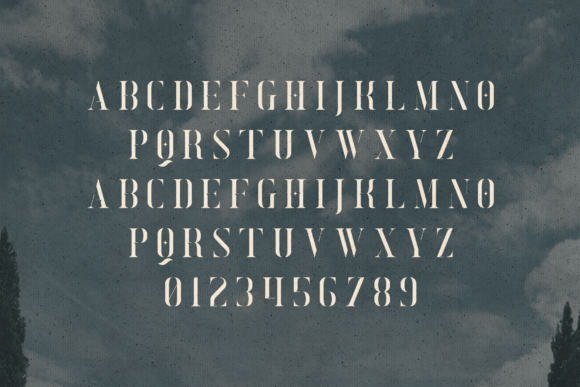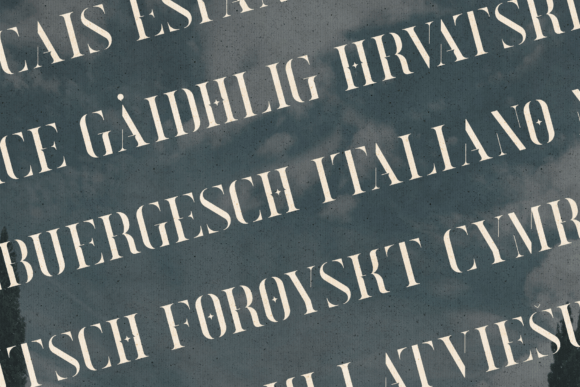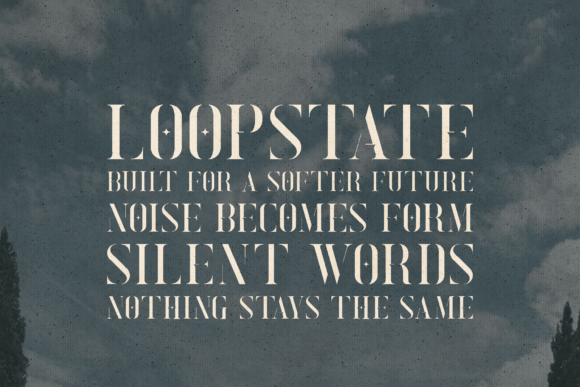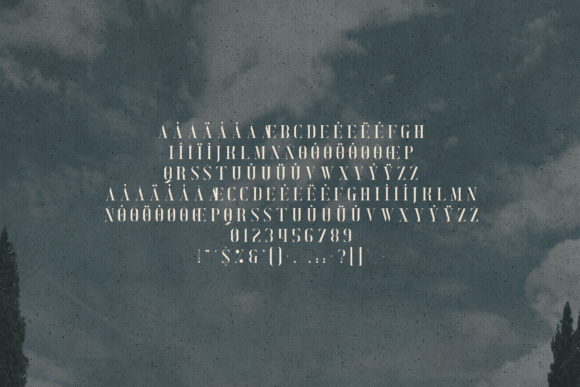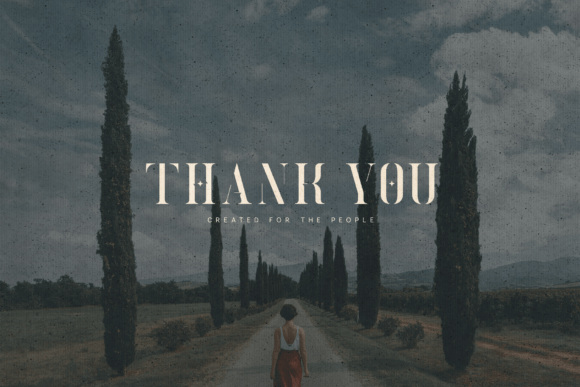
Introducing Exquisite: The Elegant Stencil Serif Font for High-End Design
Are you looking for a font that exudes sophistication, elegance, and refinement? Look no further than Exquisite, a stunning stencil serif font designed specifically for high-end branding, editorial design, and creative projects. With its unique blend of classic and contemporary elements, Exquisite is the perfect choice for designers and crafters seeking to add a touch of luxury to their work.
Refined Design for Timeless Appeal
Exquisite boasts refined proportions, sharp serif details, and distinctive stencil cuts that set it apart from other fonts. Its elegant design makes it an ideal choice for fashion editorials, luxury branding, book covers, posters, magazines, and premium visual identities. Whether you’re working on a high-end fashion magazine or a luxury brand’s visual identity, Exquisite delivers a strong emotional presence while remaining timeless and readable.
Unique Stencil Construction for Added Character
One of the standout features of Exquisite is its unique stencil construction, which adds character and atmosphere to any design. This feature makes it perfect for storytelling, lifestyle projects, and refined creative work. The stencil details also give Exquisite a distinctive edge, allowing it to stand out in a crowded design landscape.
Extensive Language Support and Compatibility
Exquisite is designed to be versatile and compatible with a wide range of design software. The font includes uppercase and lowercase letters, numerals, punctuation, symbols, and extensive multilingual support, making it suitable for projects that require a high level of customization. Delivered in OTF (OpenType Font) format, Exquisite is easy to install and fully compatible with all major design software for both print and digital use.
Exquisite is an incredibly versatile font that can be used in a variety of design applications, including:
- Luxury & fashion branding: Exquisite’s elegant design and refined proportions make it perfect for high-end fashion brands and luxury goods.
- Editorial & magazine design: Exquisite’s classic sophistication and artistic edge make it an excellent choice for fashion editorials, magazines, and lifestyle publications.
- Book covers & posters: Exquisite’s strong emotional presence and timeless appeal make it ideal for book covers, posters, and other visual materials.
- Wedding & invitations: Exquisite’s elegant design and refined details make it perfect for wedding invitations, stationery, and other formal events.
Why Choose Exquisite?
So why choose Exquisite over other fonts? Here are just a few reasons:
- Unique design: Exquisite’s stencil construction and refined proportions set it apart from other fonts.
- Timeless appeal: Exquisite’s classic sophistication ensures that it will remain stylish and relevant for years to come.
- Versatility: Exquisite can be used in a wide range of design applications, from luxury branding to editorial design.
In conclusion, Exquisite is a truly exceptional font that offers a unique blend of classic sophistication and contemporary edge. With its refined design, extensive language support, and versatility, Exquisite is the perfect choice for designers and crafters seeking to add a touch of luxury to their work. Whether you’re working on a high-end fashion brand, a luxury goods company, or a refined creative project, Exquisite is sure to deliver a strong emotional presence and timeless appeal.